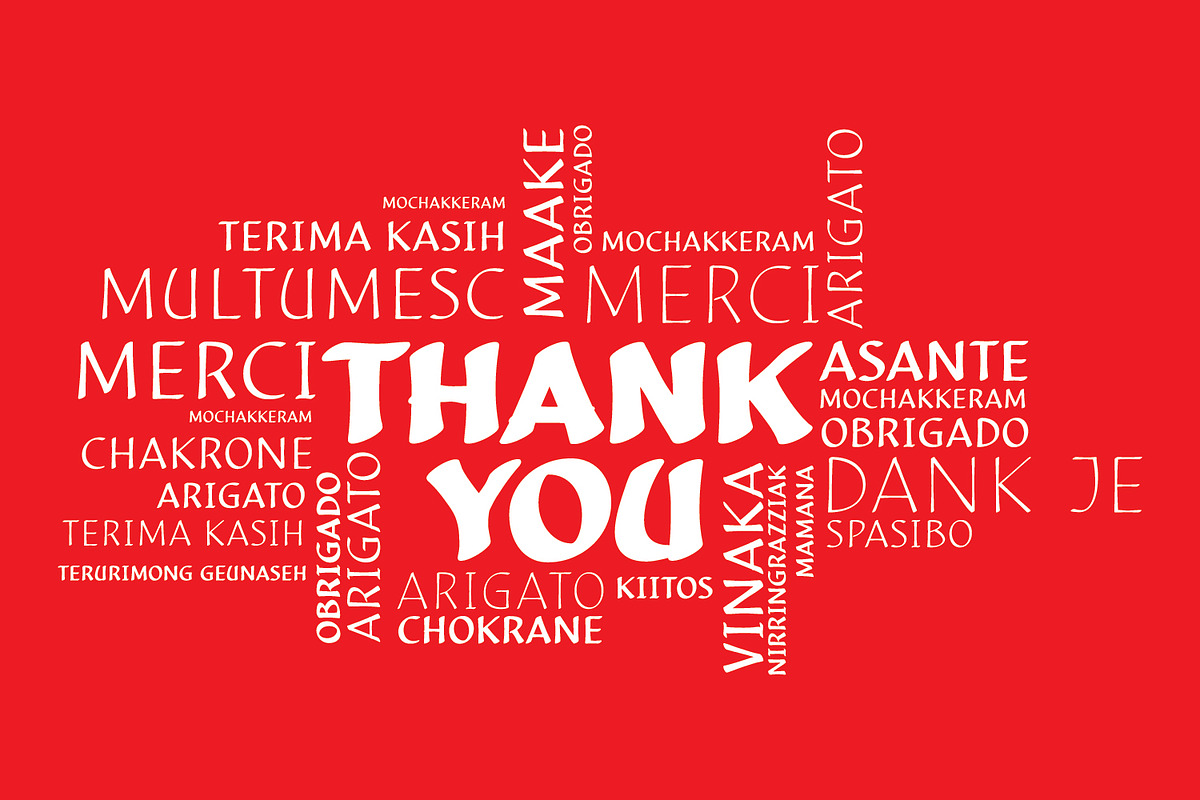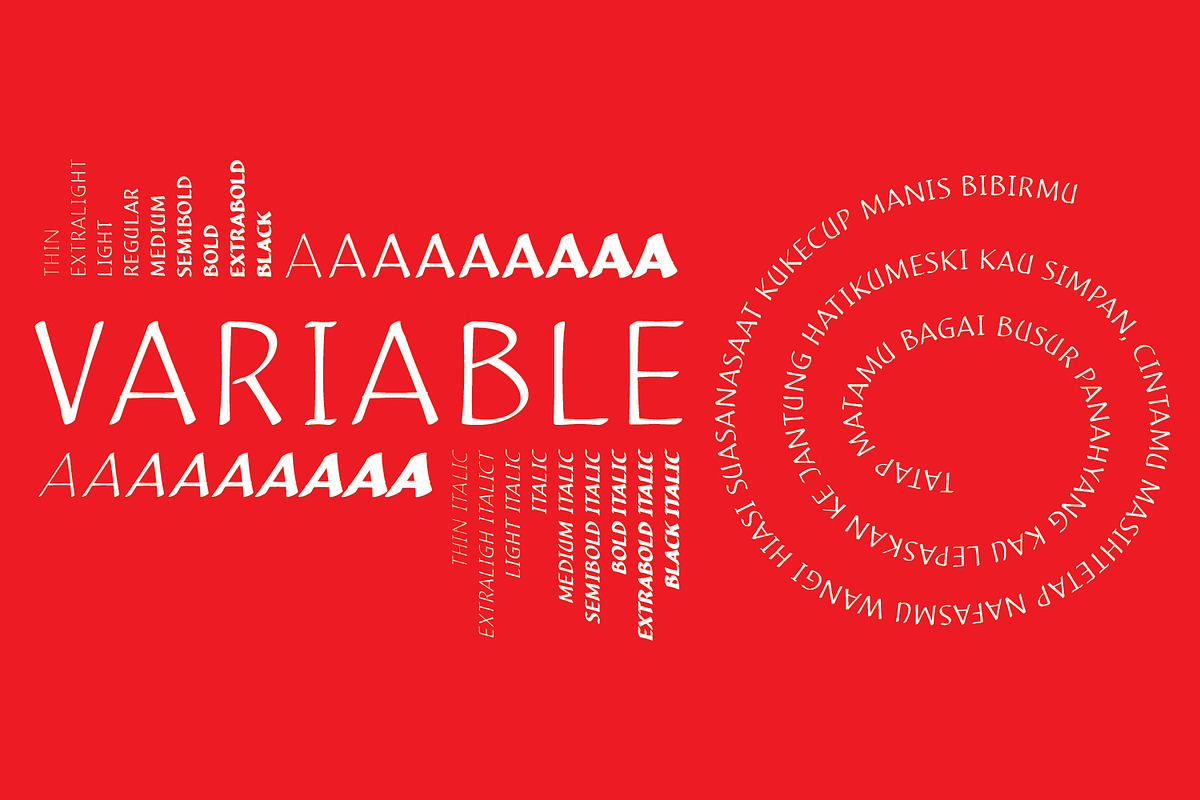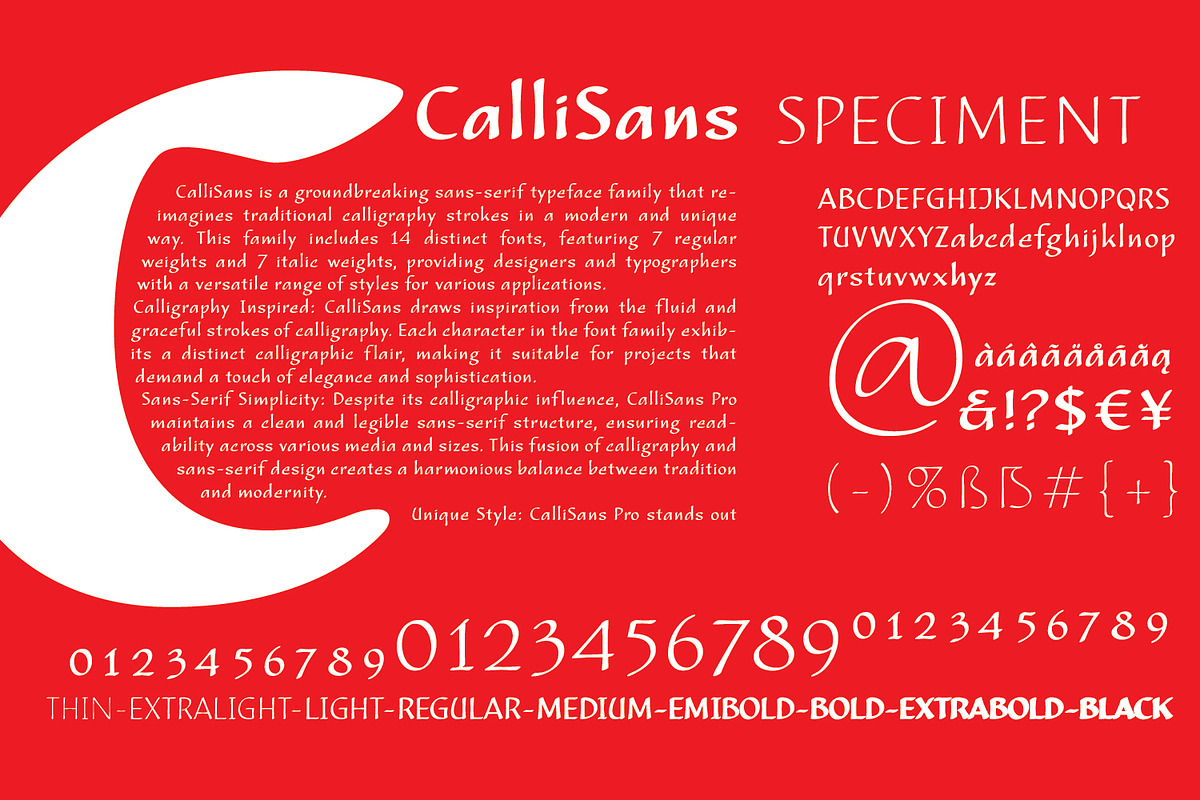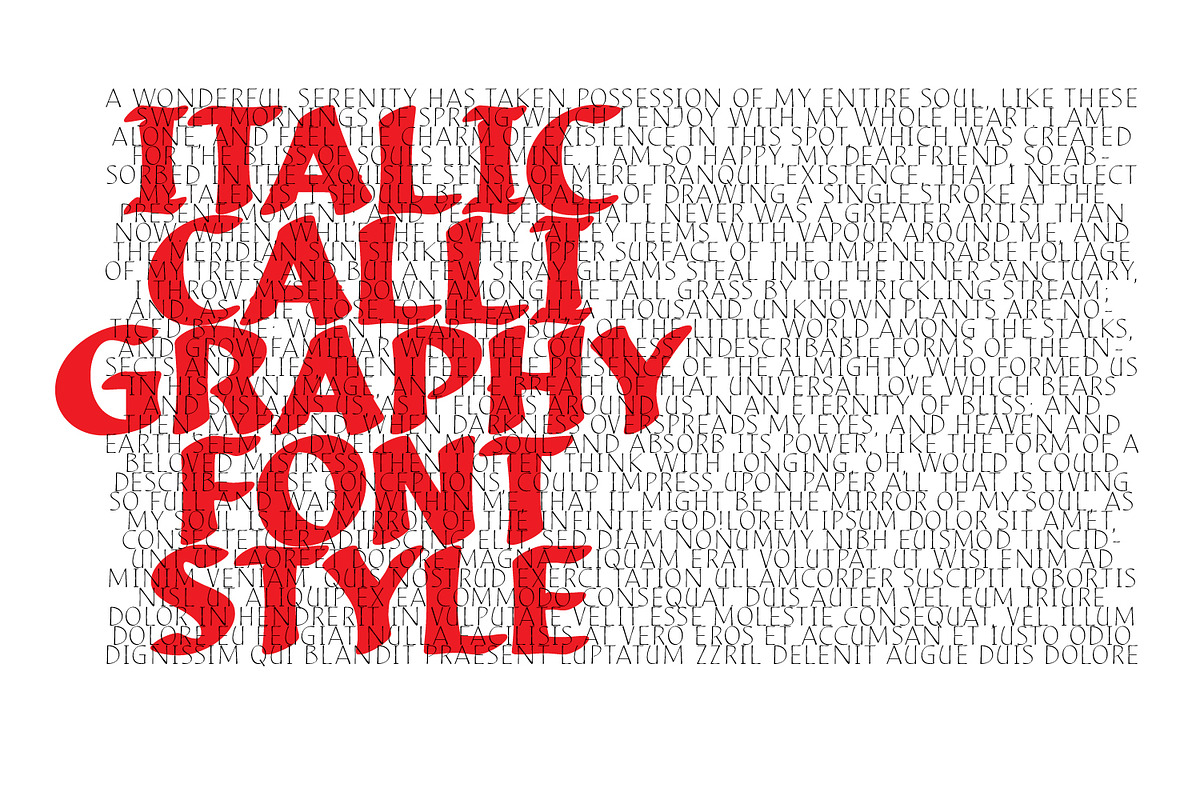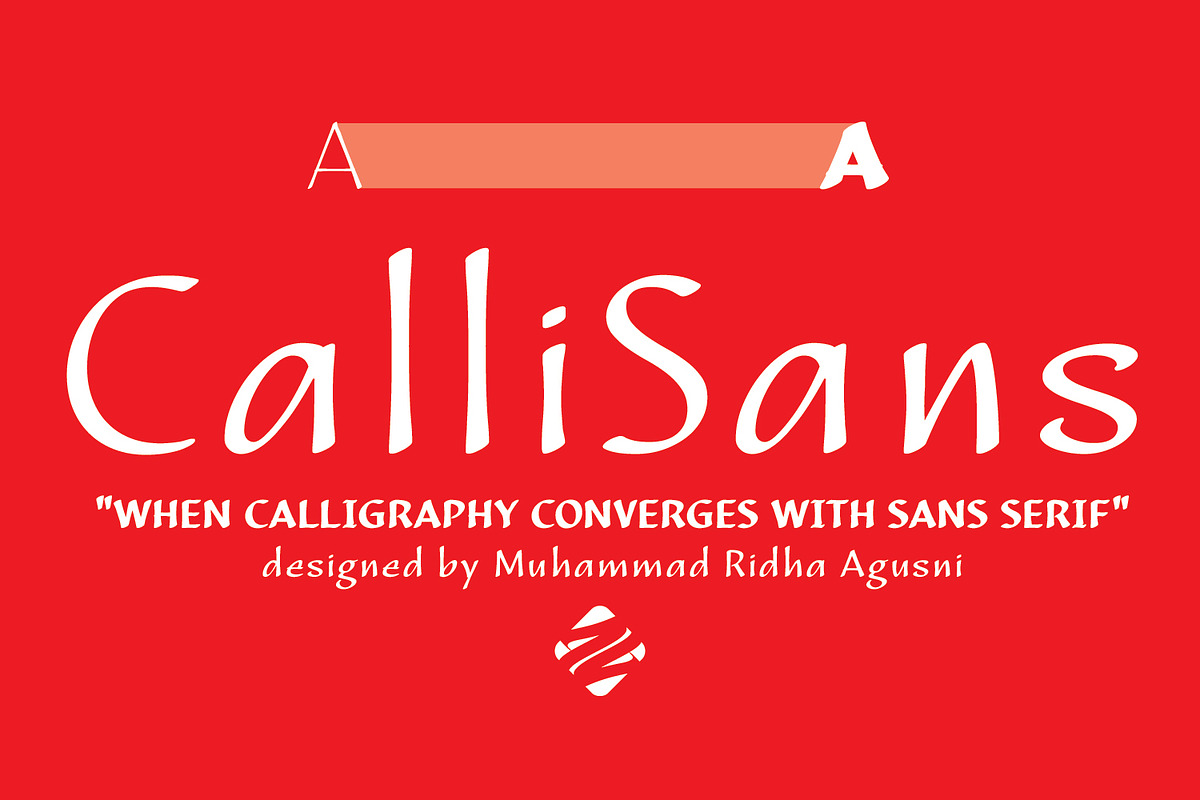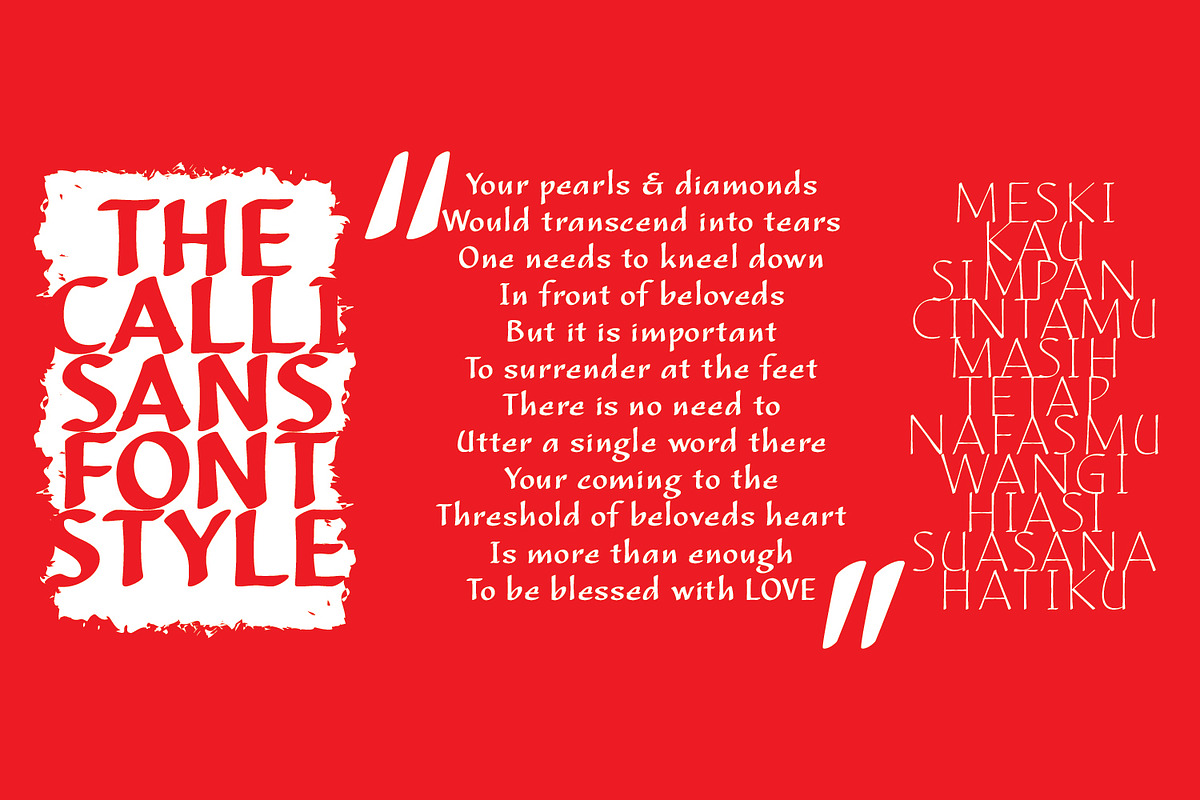
CalliSans
Introducing CalliSans: a revolution in typography. 14 fonts, 7 regular and 7 italic, seamlessly blend calligraphy's grace with sans-serif simplicity. Perfect for projects demanding elegance, from books to digital screens. Make a bold statement with its distinctive style. Timeless yet contemporary, it transcends trends. Your creative secret weapon. CalliSans: where art meets design.